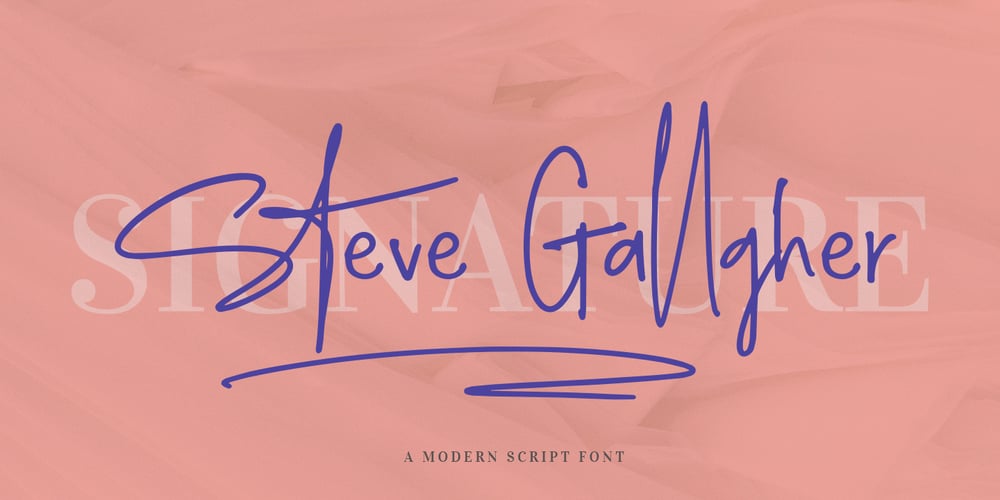
Steve Gallagher
Steve Gallagher font
Steve Gallagher Font Family was designed by Gitayogi Irhandi and published by Scratch Design. Steve Gallagher contains 1 styles and family package options. Introducing Steve Gallagher modern script font. This font has some uniques script ligature font, it is perfect for combining to make look likes a signature. This font is perfect for your various design projects, elegant and luxurious branding, wedding invitation, book cover designs, classy packaging, album covers, handwritten quotes, greeting cards, unique social media posts, and so much more.This script font looks more modern and elegant signature script font containing upper and lowercase characters, and a variety of 47 ligatures options and also contains 10 swashes to help text look more natural as the original signature.